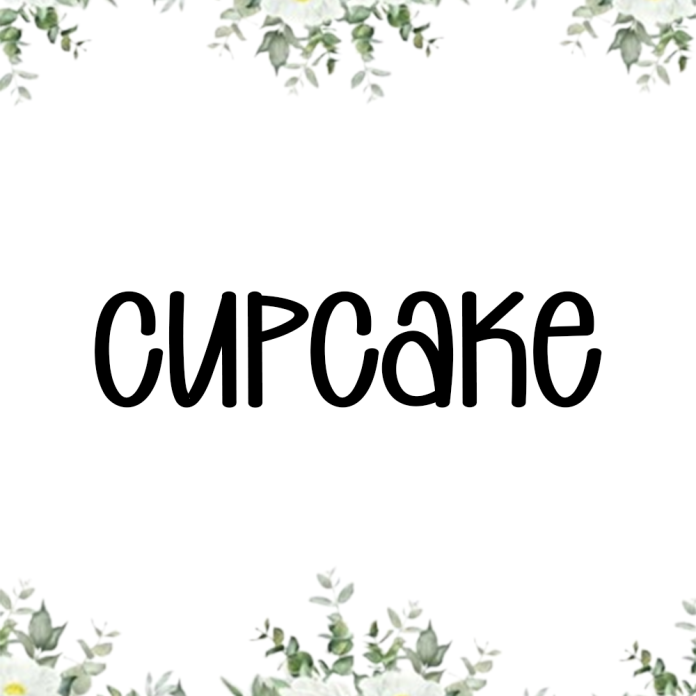
Cupcake Font is a sweet and friendly handwritten font. Fresh and casual, this font is ideal for writing wedding invitations, cards, or any other design that might need a lovely touch.